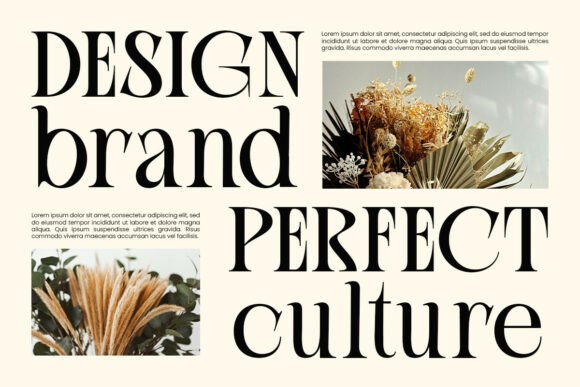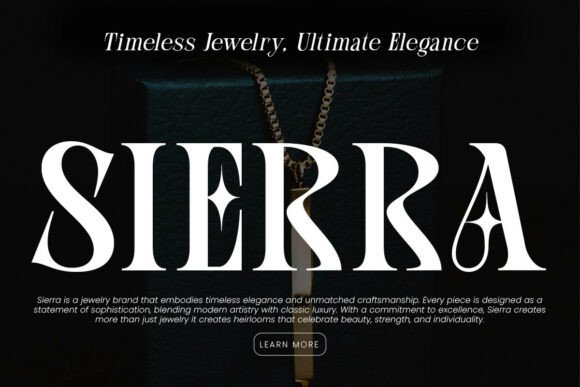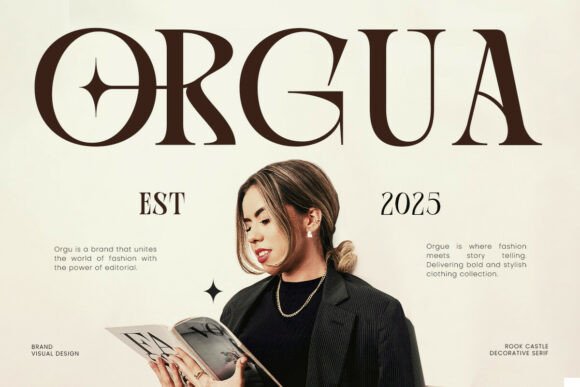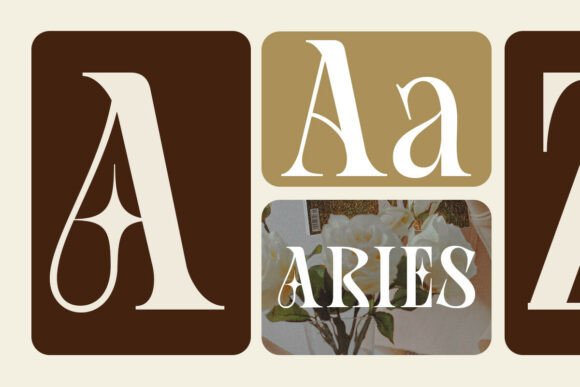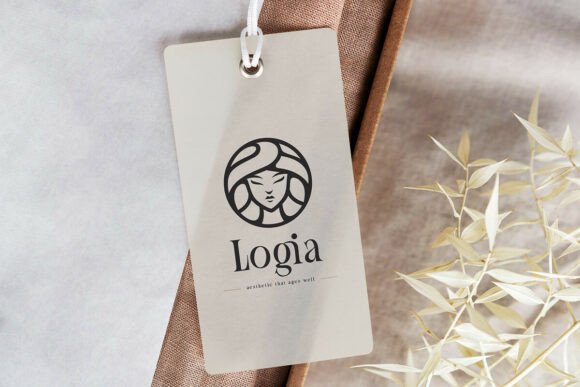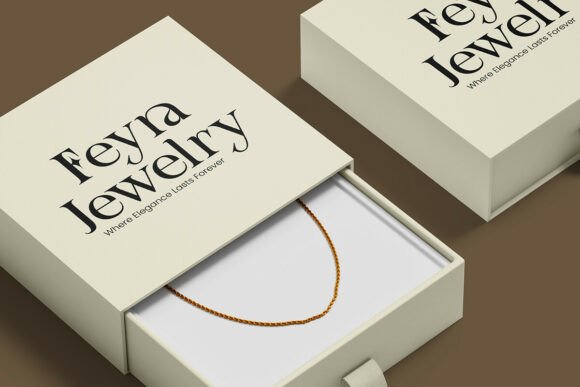
Introduction to Rook Castle Font
Rook Castle is a decorative serif typeface that blends timeless elegance with bold personality.
Inspired by classic architecture and medieval charm, this font brings a sense of sophistication and strength to any design project Its stylish curves and distinctive letterforms make it a perfect choice for those who want to create designs with impact and character.